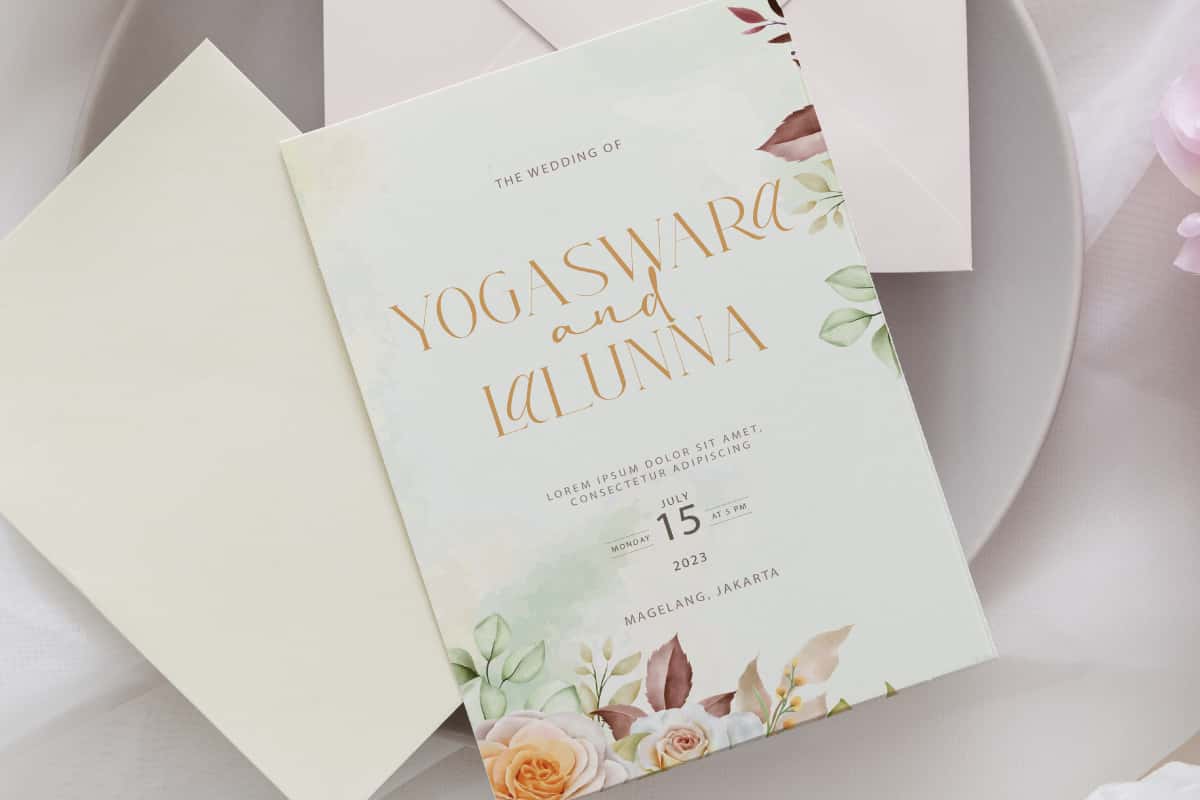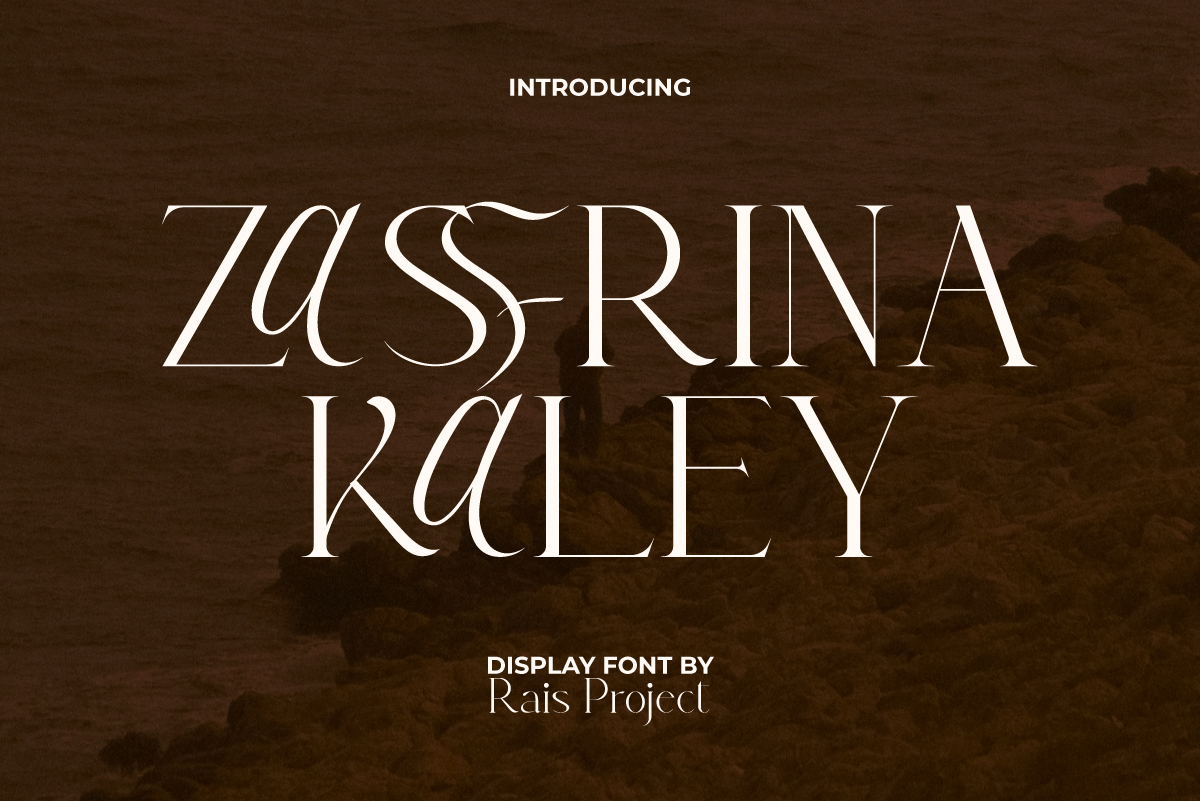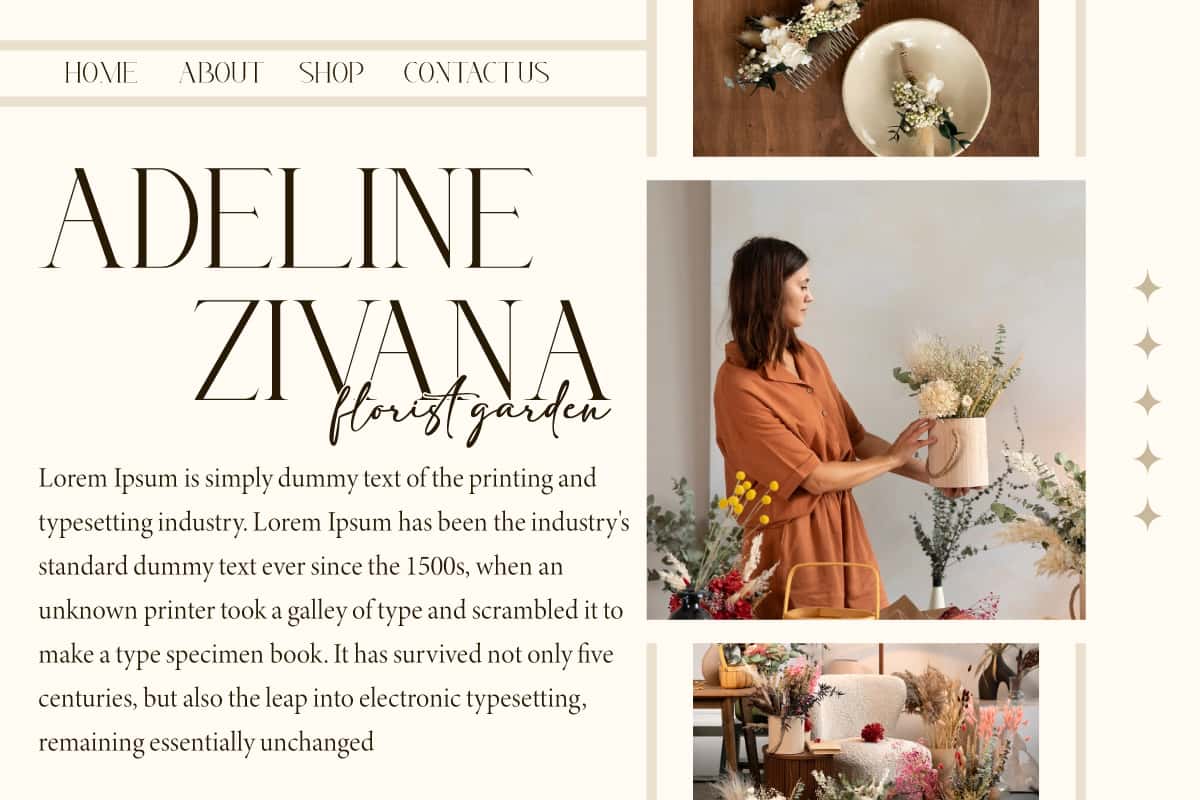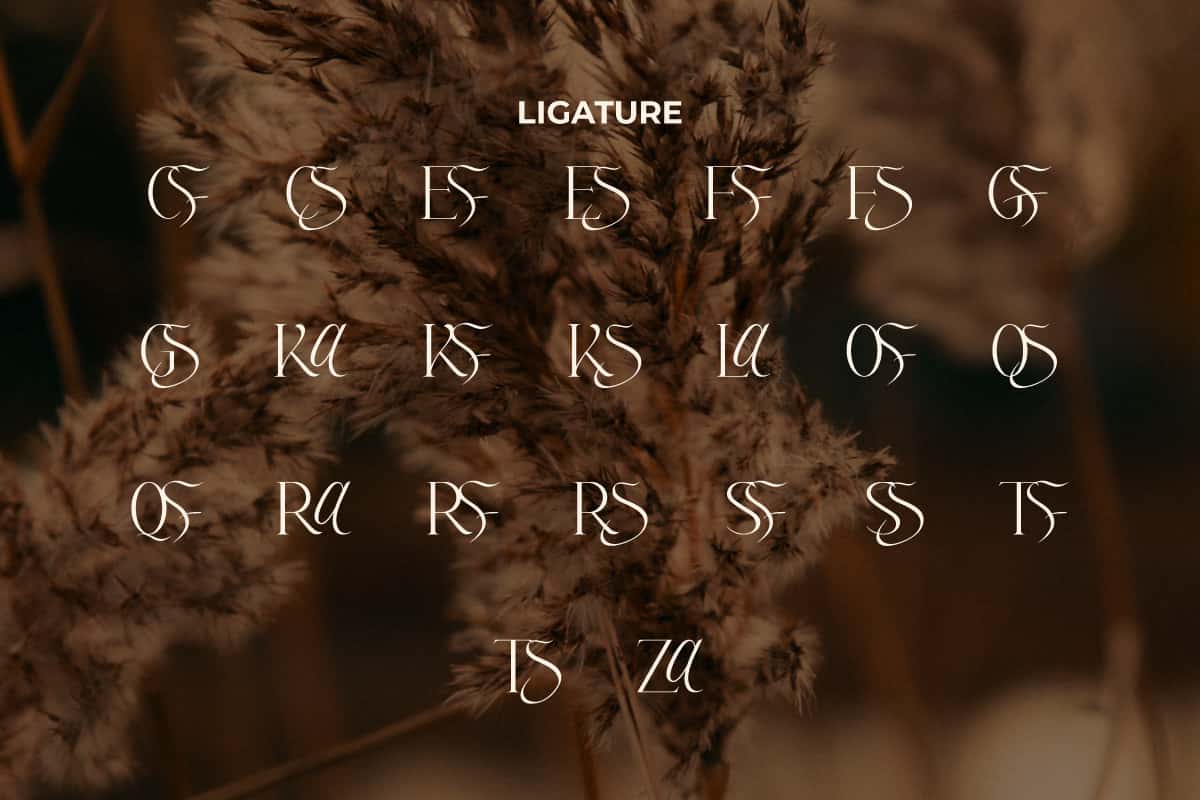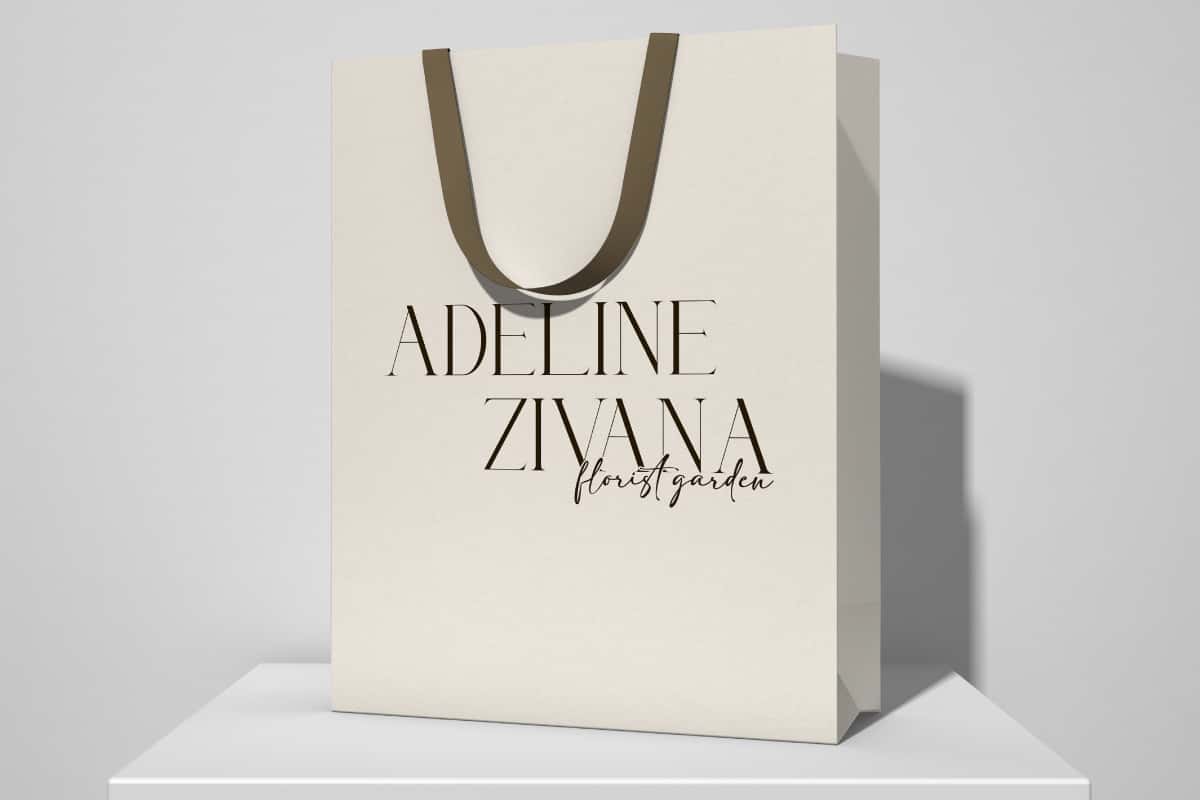
Zasfrina Kaley Font
Zasfrina Kaley Font is an elegant display font with serif type. Try adding this font to make your design even more stunning!
Zasfrina Kaley Font is a modern style serif display font, created by RaisProject. This font has a unique character so it can add an attractive aesthetic to your design. It will look good on invitation, stationery, poster, custom design, product packaging, quotes, signage, brand image, advertisement, label, marketing material, website page, and more!
Zasfrina Kaley Font includes a full set of ALL CAPS for Uppercase and Lowercase Letters, Numerals, large range of Punctuation, and Ligature character. This stylish font will be suitable for various industries, such as fashion, jewelry, cafe, event or wedding organizer, photography, printing, publishing, etc.